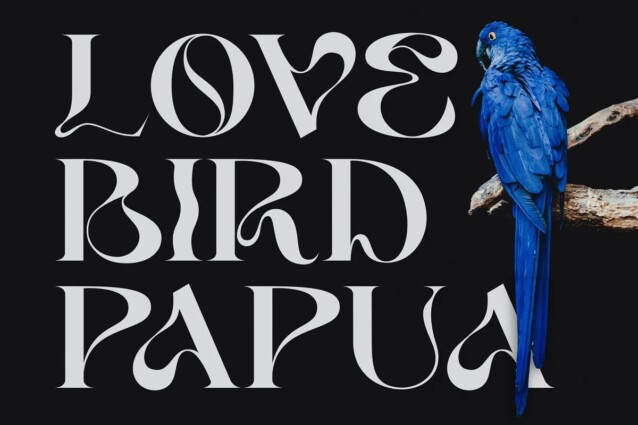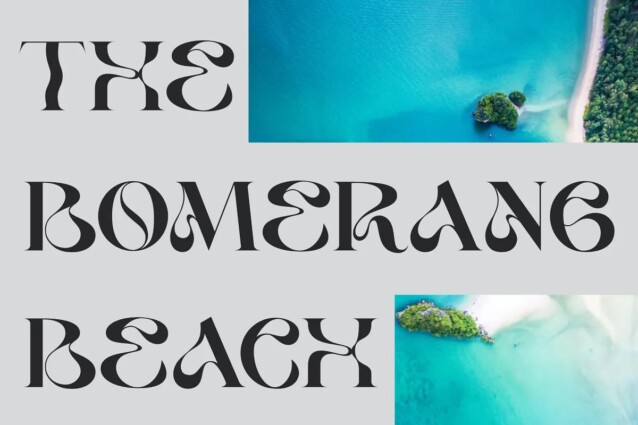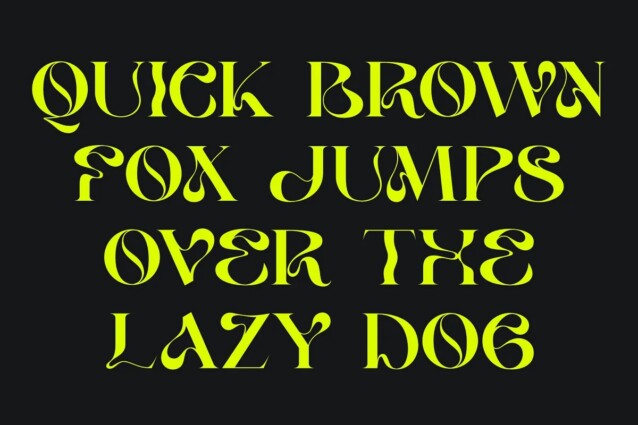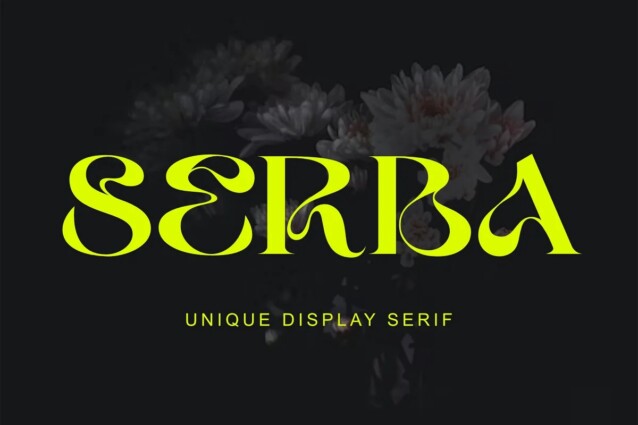
Serba Font
Serba Font blends modern and ancient typography to create a sense of nostalgic wonderlust. With a modern look, it looks perfect when paired with a conventional serif/sans serif. It can be used for mastheads, posters, business identity and just about anything else.